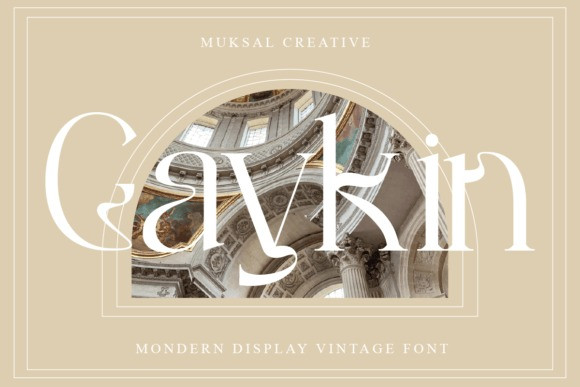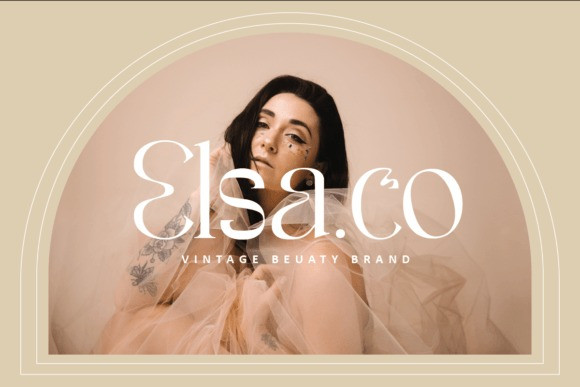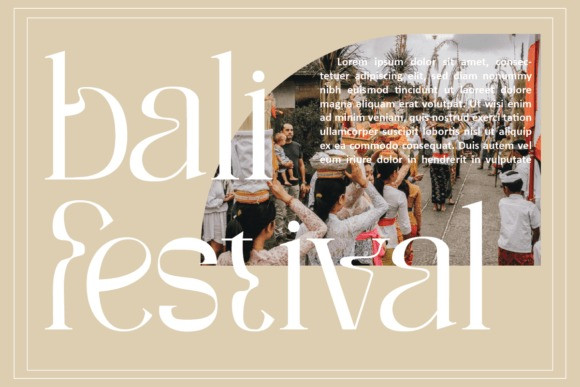
Gaykin Font
Gaykin is a modern and sophisticated serif font with ornamental characters. It’s a very versatile font that works great in large and small sizes. Perfect for editorial projects, Logo design, Clothing Branding, product packaging, magazine headers, or simply as a stylish text overlay to any background image.